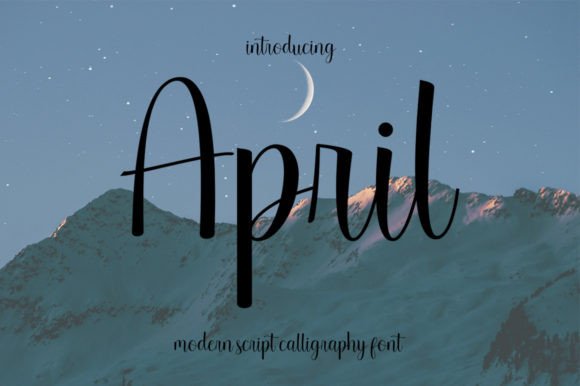
The Enchanting April Font: A Designer’s Dream Come True
I’ll never forget the time I was working on a project for a client who wanted a romantic and whimsical feel. I had spent hours browsing through font libraries, but nothing seemed quite right. That was until I stumbled upon the April font. This enchanting handwritten font has been a game-changer for me, and I’m excited to share its magic with you! ✨
- ✨ The April font has a unique, elegant feel that’s perfect for adding a touch of romance to any project.
- ✅ Its versatility makes it suitable for a wide range of applications, from greeting cards to headlines.
- 💫 The font’s handwritten quality gives it a personal and approachable feel that’s hard to achieve with more formal fonts.
- 🎨 The April font comes with a range of OpenType features, including glyphs and stylistic alternates, which allow for endless creativity.
While the April font is incredibly versatile, there are a few things to keep in mind. 🤔
- ⚠️ Some of the more intricate glyphs can be a bit finicky, requiring a bit of tweaking to get just right.
- ⚠️ The font’s handwritten quality can make it more challenging to use in very formal or corporate contexts.
The Story Behind the April Font
The April font was designed by a talented typographer who wanted to capture the essence of springtime in a font. Inspired by the blooming flowers and gentle breezes of April, this font is meant to evoke a sense of romance and wonder.
Q: What is the April font best used for?
A: The April font is versatile and can be used for a wide range of projects, from greeting cards to headlines, and anywhere you want to add a touch of romance and whimsy.
Q: Is the April font available in different weights or styles?
A: The April font is available in a range of styles, including regular, italic, and bold. However, the exact weights and styles may vary depending on the font package or vendor.